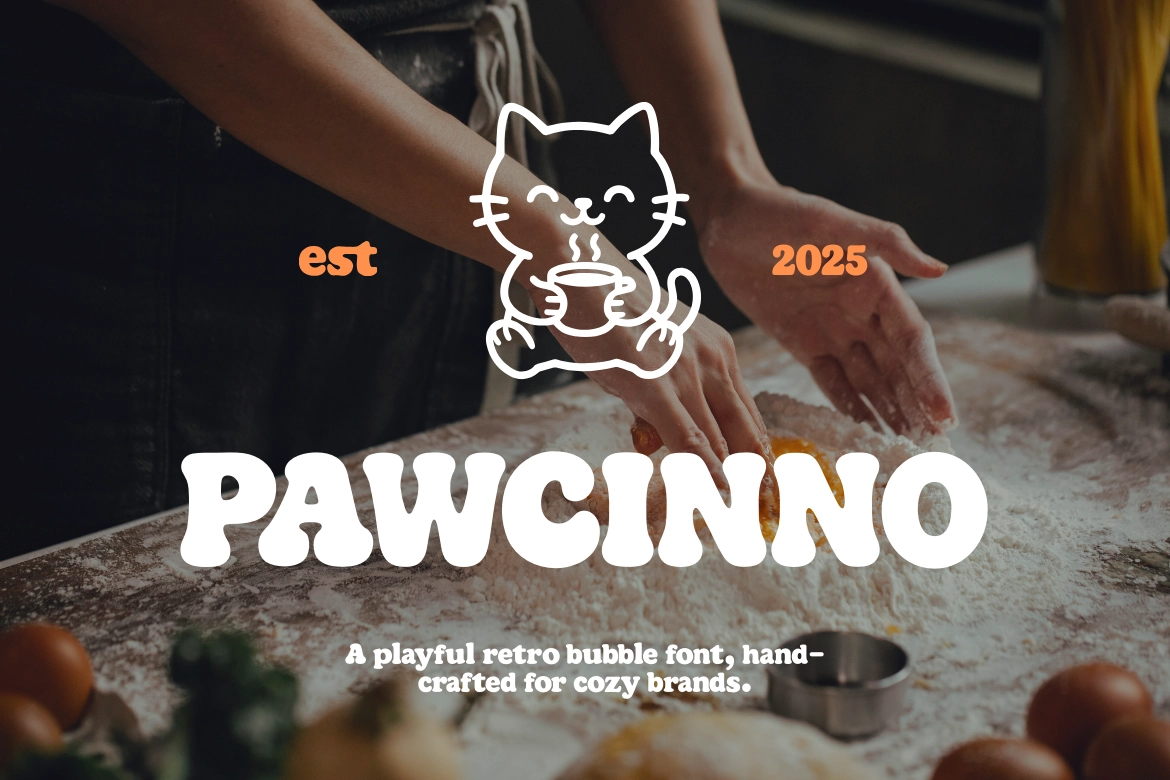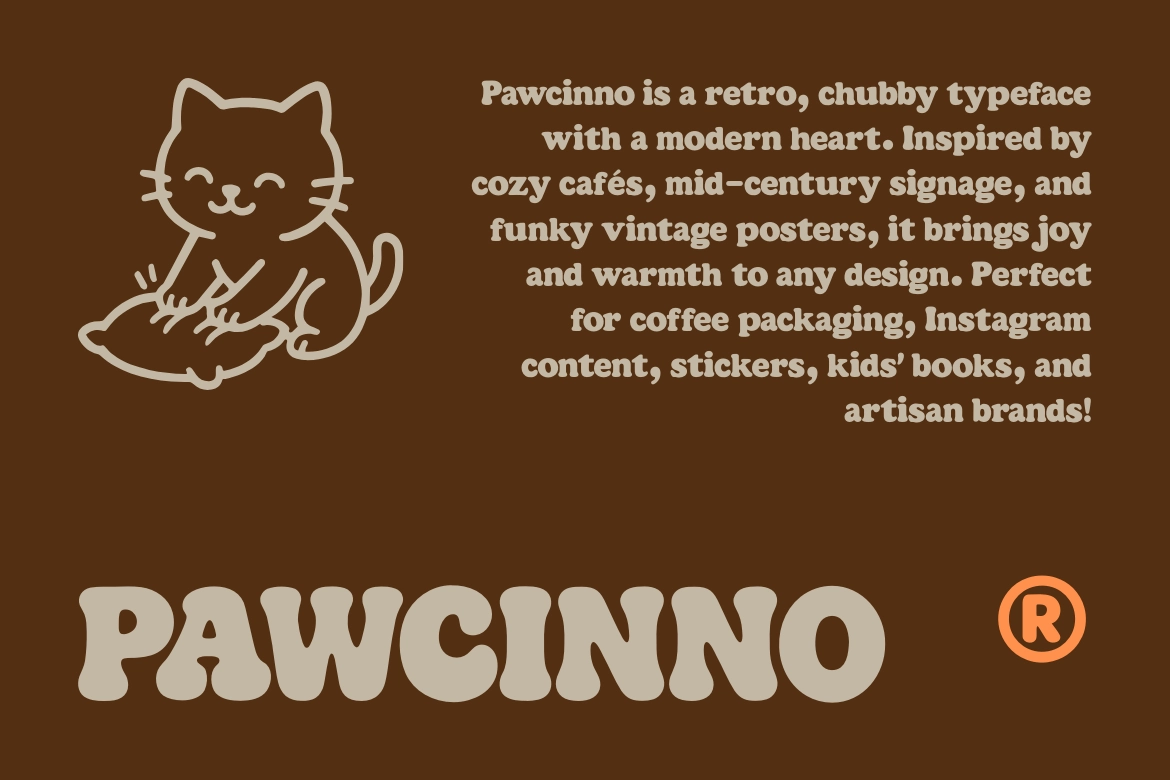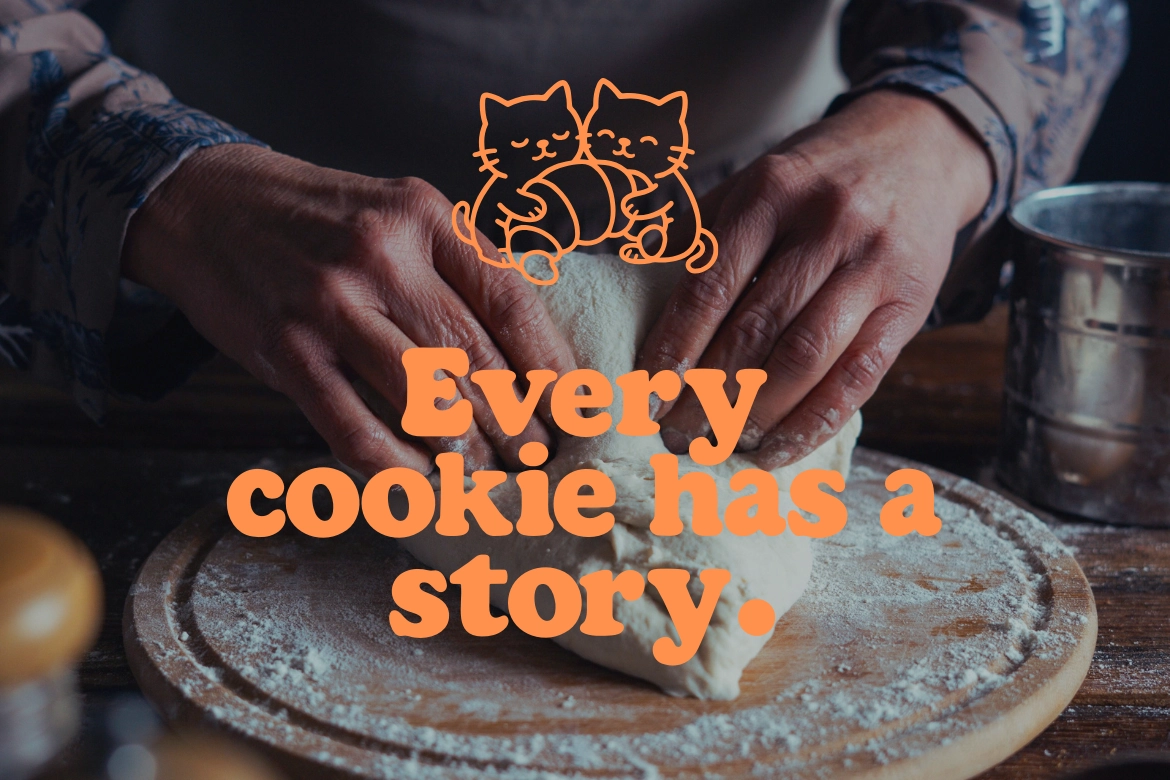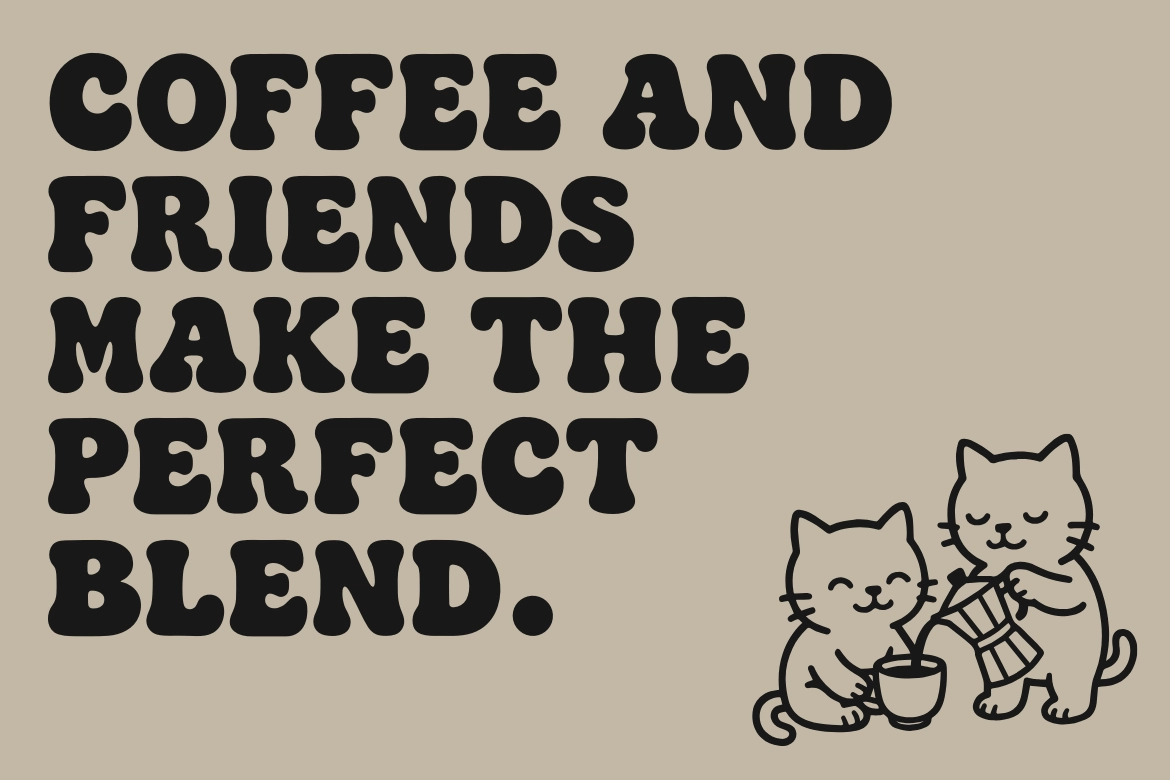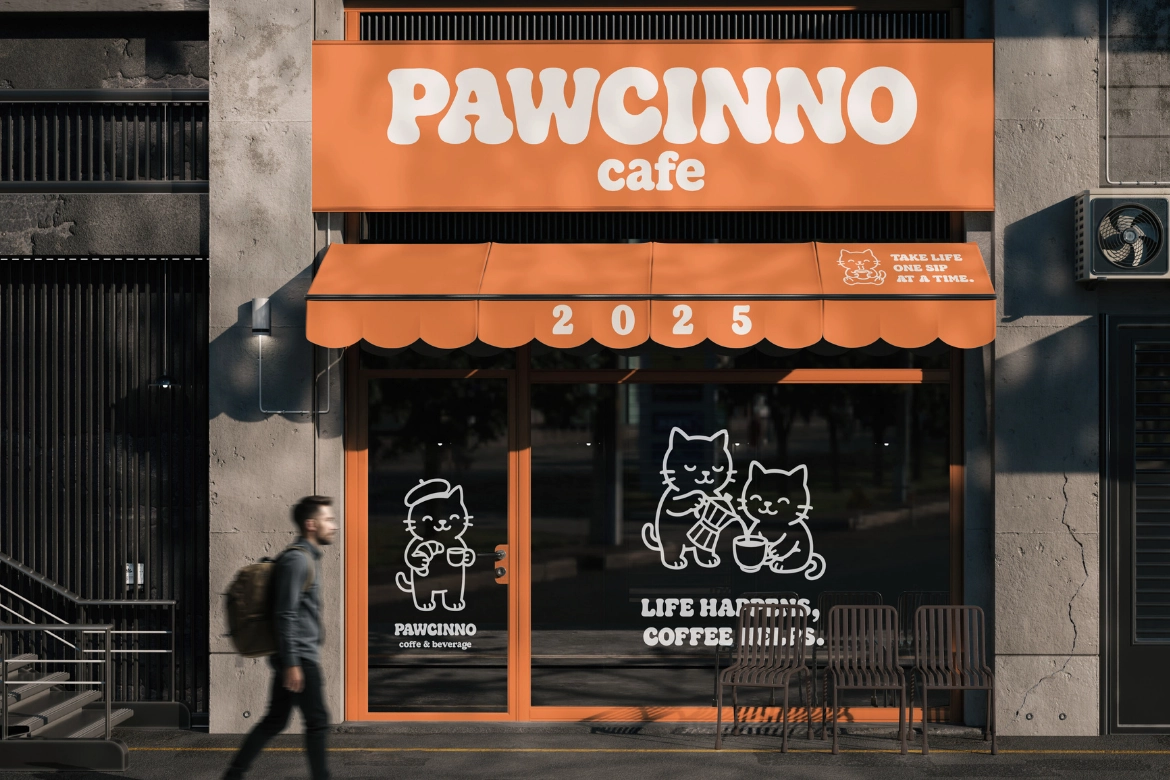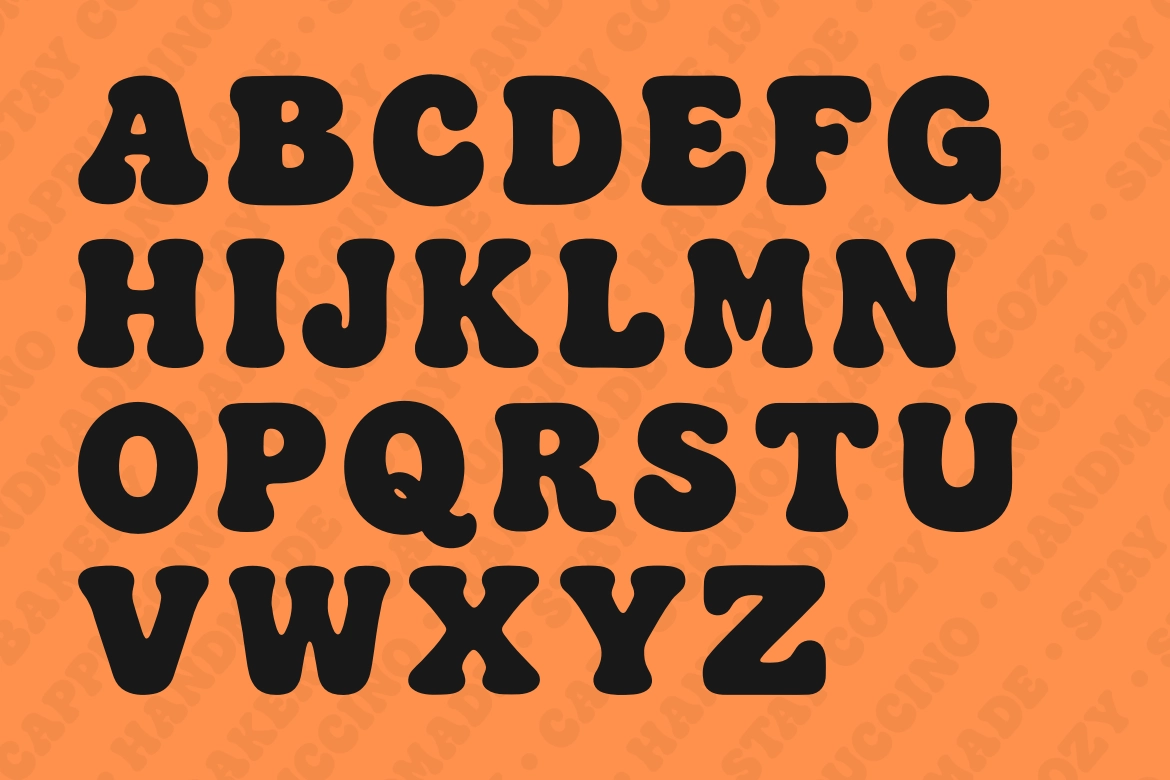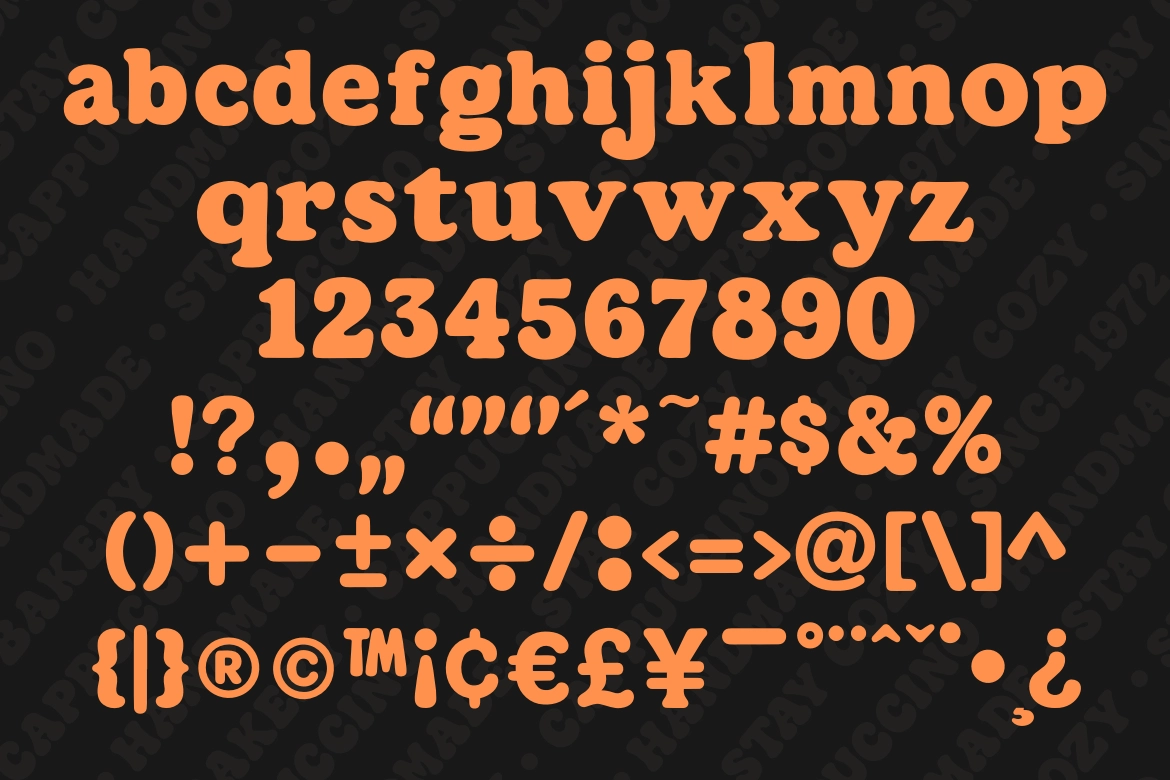
Pawcinno – Playful Retro Bubble Font
PAWCINNO
Get ready to groove with Pawcinno, a playful retro bubble font that bursts with personality and charm!
Inspired by the colorful pop culture of the 70s and early 80s, Pawcinno brings a cheerful, bubbly vibe that instantly makes your design feel fun, nostalgic, and full of life.
With smooth curves, rounded edges, and a touch of vintage flair, this font is perfect for adding joy and positivity to any creative project — from bold headlines to candy packaging, posters, and social media graphics.
Perfect For
- Retro branding & packaging
- Playful logos & posters
- Children’s products
- T-shirt design
- Fun social media graphics
Bring back the good vibes with Pawcinno — a bubble font that makes every word dance with joy!